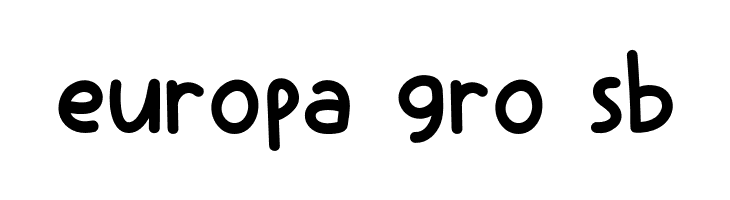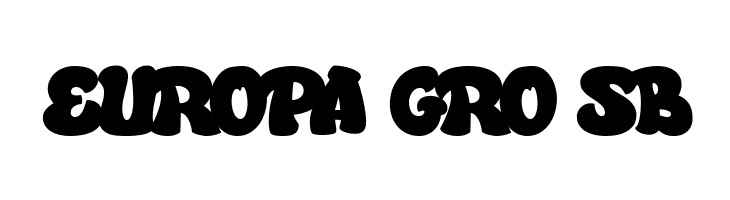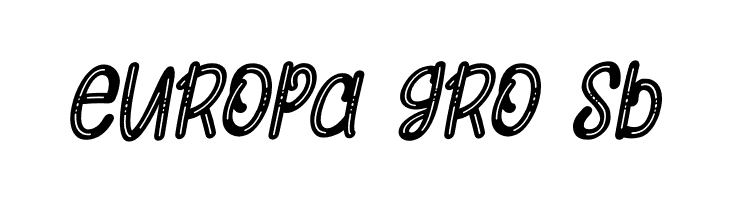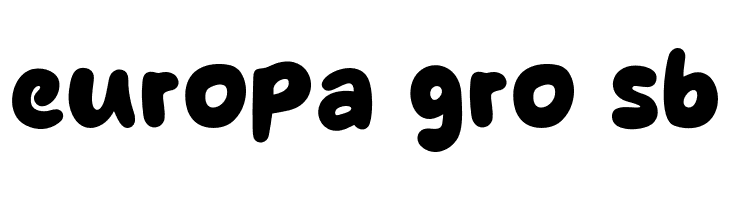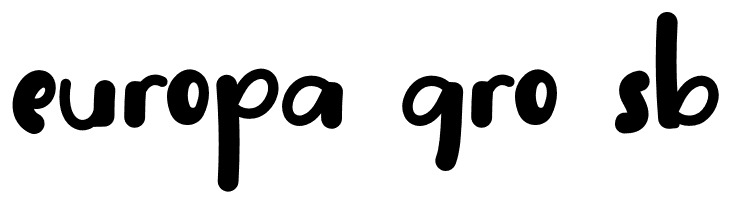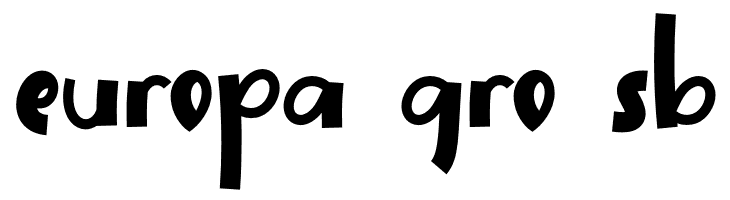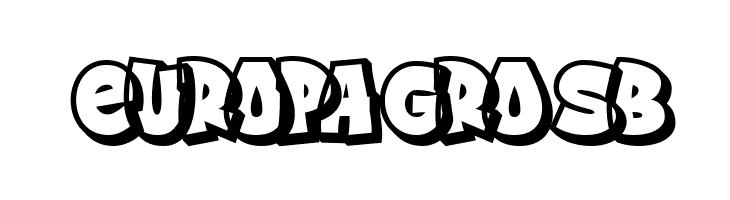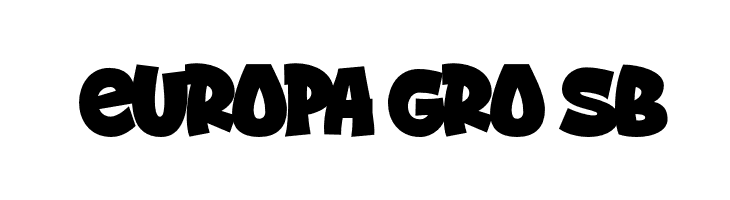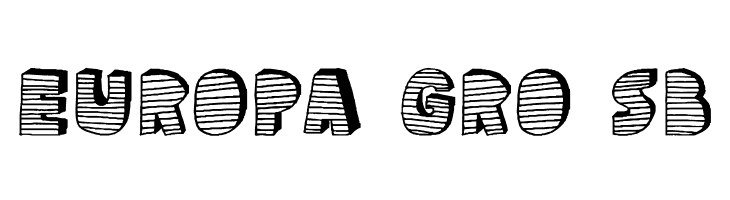
A playful, rounded font with a friendly and approachable style.
A playful, rounded font with a hand-drawn, friendly appearance.
A playful, hand-drawn font with quirky, irregular strokes and rounded edges.
Bold graffiti-style font with 3D extrude effect.
A bold, playful font with a graffiti-like, bubbly appearance.
A bold, playful font with rounded edges and a hand-drawn feel.
Bold graffiti-style font with urban flair.
A bold, playful font with rounded edges and a hand-drawn feel.
A bold, playful font with a 3D striped effect and strong outlines.
A playful, striped italic font with bold strokes and rounded edges.